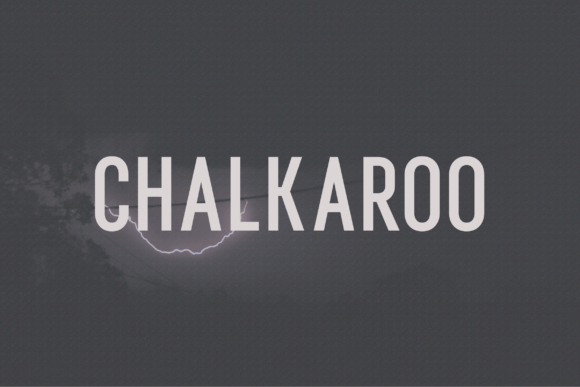
Introducing Chalkaroo Font: The Ultimate Choice for Bold and Modern Designs
In the world of typography, fonts play a crucial role in conveying messages, expressing emotions, and creating visual identities. When it comes to making a statement, a bold and modern font is essential for grabbing attention and leaving a lasting impression. This is where Chalkaroo Font comes into play – a game-changing, all-caps sans-serif font designed to elevate your designs with clean, impactful visuals.
What is Chalkaroo Font?
Chalkaroo is a bold, modern, all-caps sans-serif font crafted to bring clarity and style to your designs. Its sleek and confident appearance makes it perfect for a wide range of applications, including logos, headlines, posters, packaging, and digital content. Whether you’re working on branding, tech, fashion, or creative projects, Chalkaroo is the ideal choice for adding a professional touch without being too complex.
Key Features of Chalkaroo Font
- Bold and Modern Design: Chalkaroo boasts a bold and modern aesthetic that’s perfect for making a statement.
- All-Caps Sans-Serif Font: Its all-caps design ensures that your text stands out, while the sans-serif style provides a clean and minimalist look.
- Highly Versatile: Chalkaroo is simple to use and can be applied to various design projects, from logos and headlines to posters and digital content.
- Standard Latin Characters, Punctuation, and Numerals: This font includes a comprehensive set of standard Latin characters, punctuation, and numerals, making it a practical choice for designers.
Use Cases for Chalkaroo Font
Chalkaroo’s versatility makes it suitable for a wide range of design projects. Here are some of the most popular use cases:
- Logos and Branding: Create a strong and confident visual identity for your brand with Chalkaroo’s bold and modern design.
- Headlines and Posters: Grab attention with Chalkaroo’s clean and impactful visuals, perfect for headlines, posters, and other large-format designs.
- Packaging Design: Add a professional touch to your product packaging with Chalkaroo’s sleek and modern aesthetic.
- Digital Content: Elevate your digital content, including social media graphics, website headers, and email newsletters, with Chalkaroo’s bold and modern design.
- Tech and Fashion Projects: Chalkaroo is ideal for tech and fashion projects, where a clean, modern, and professional look is essential.
Benefits of Using Chalkaroo Font
So, why choose Chalkaroo Font for your design projects? Here are some benefits that set it apart:
- Clean and Impactful Visuals: Chalkaroo’s bold and modern design ensures that your text stands out and grabs attention.
- Professional Touch: Add a professional touch to your designs without compromising on style or complexity.
- Highly Versatile: Chalkaroo is simple to use and can be applied to various design projects, making it a valuable addition to your font library.
- Easy to Read: Despite its bold design, Chalkaroo remains easy to read, even at smaller font sizes.
Tips for Using Chalkaroo Font Effectively
To get the most out of Chalkaroo Font, here are some tips to keep in mind:
- Pair with Complementary Fonts: Combine Chalkaroo with complementary fonts to create visual interest and hierarchy.
- Experiment with Colors: Try out different colors to find the perfect match for your design and brand.
- Use for Headlines and Titles: Chalkaroo is perfect for headlines and titles – use it to grab attention and create visual impact.
- Keep it Simple: Don’t overcomplicate your design – keep it simple and clean to let Chalkaroo’s bold design shine.
In conclusion, Chalkaroo Font is a game-changing, bold, and modern all-caps sans-serif font designed to elevate your designs with clean, impactful visuals. Its versatility, professional touch, and ease of use make it an ideal choice for a wide range of design projects, from logos and branding to tech and fashion. With Chalkaroo, you can add a strong and confident look to your designs without compromising on style or complexity.